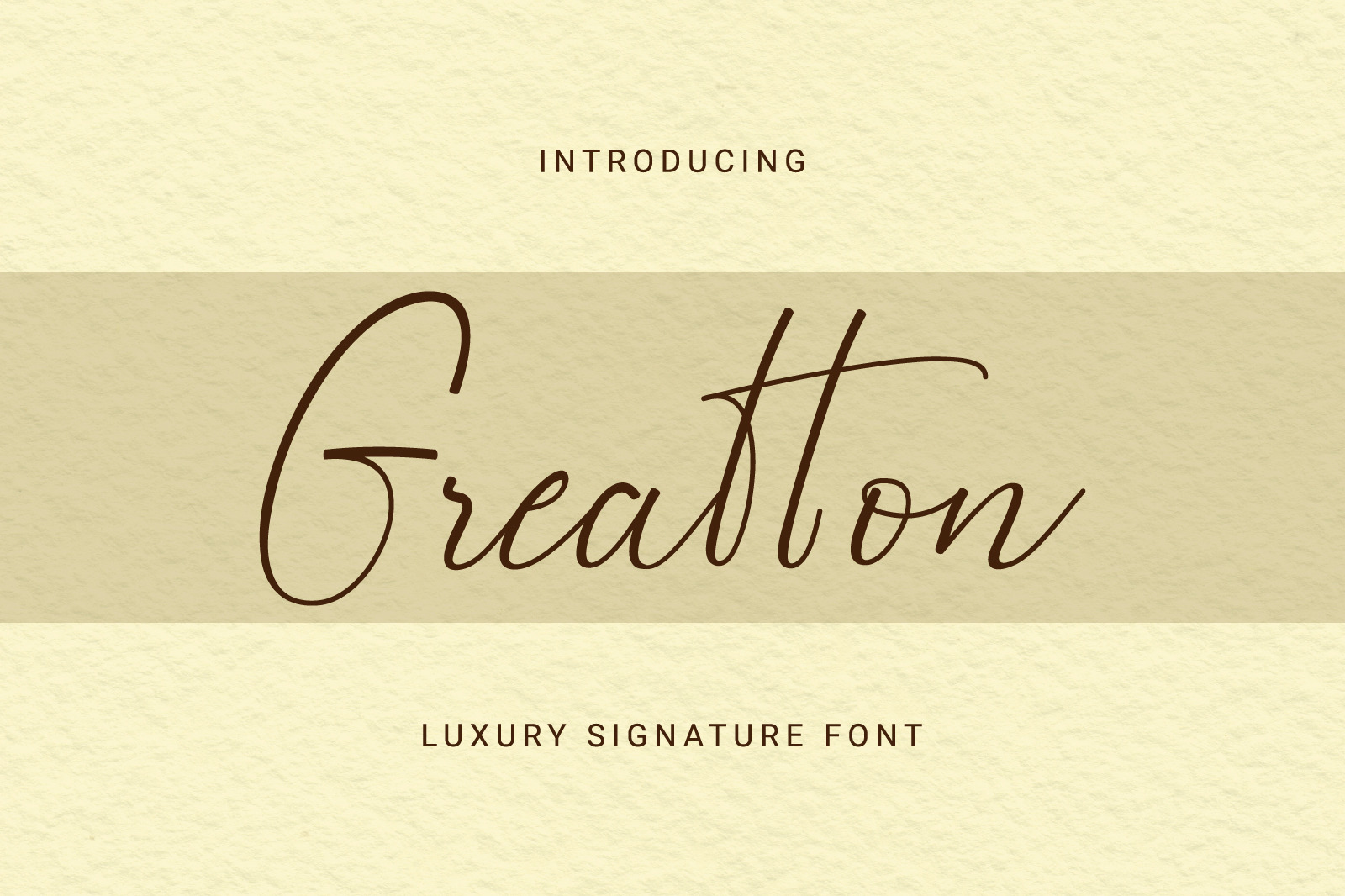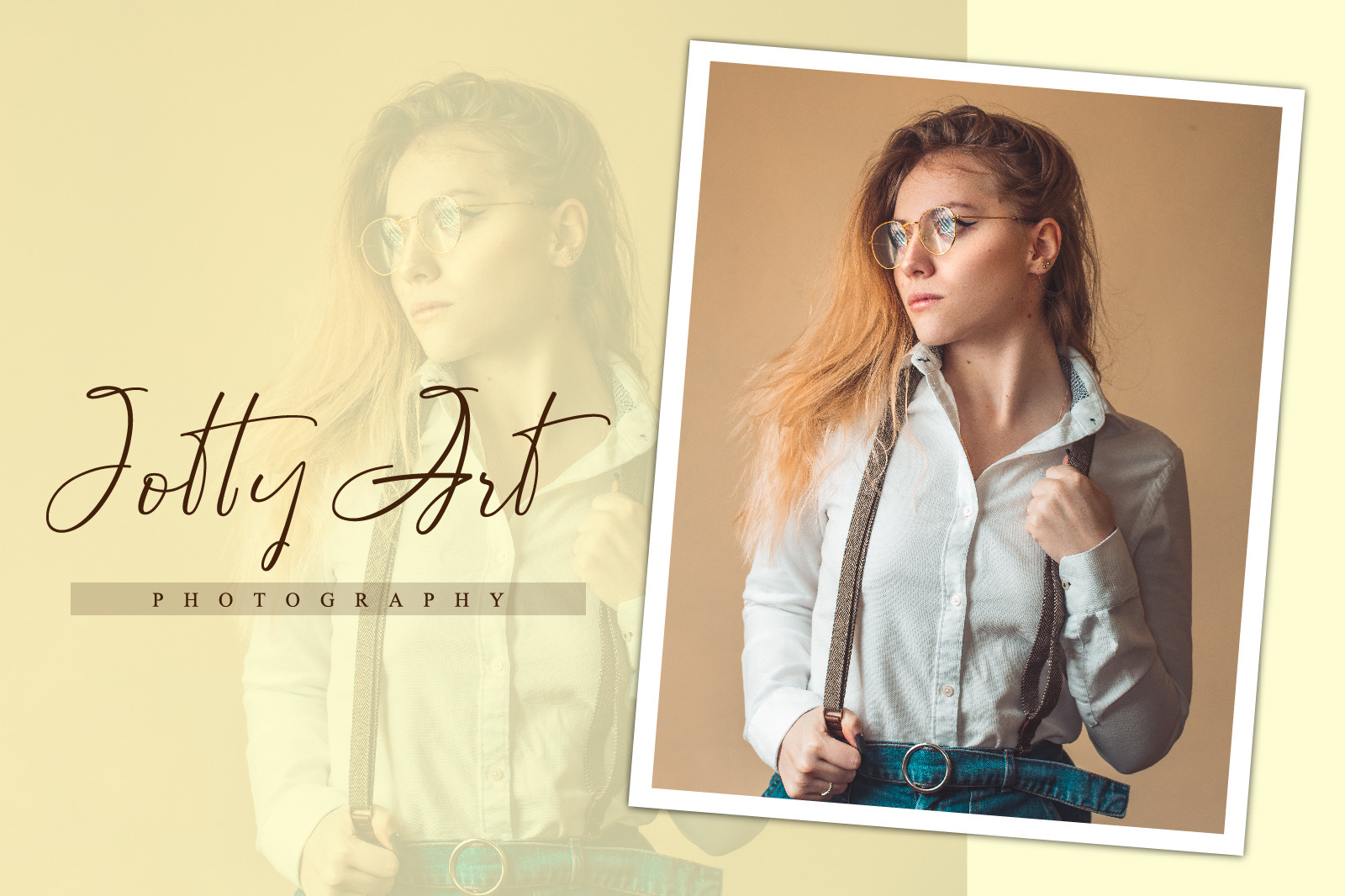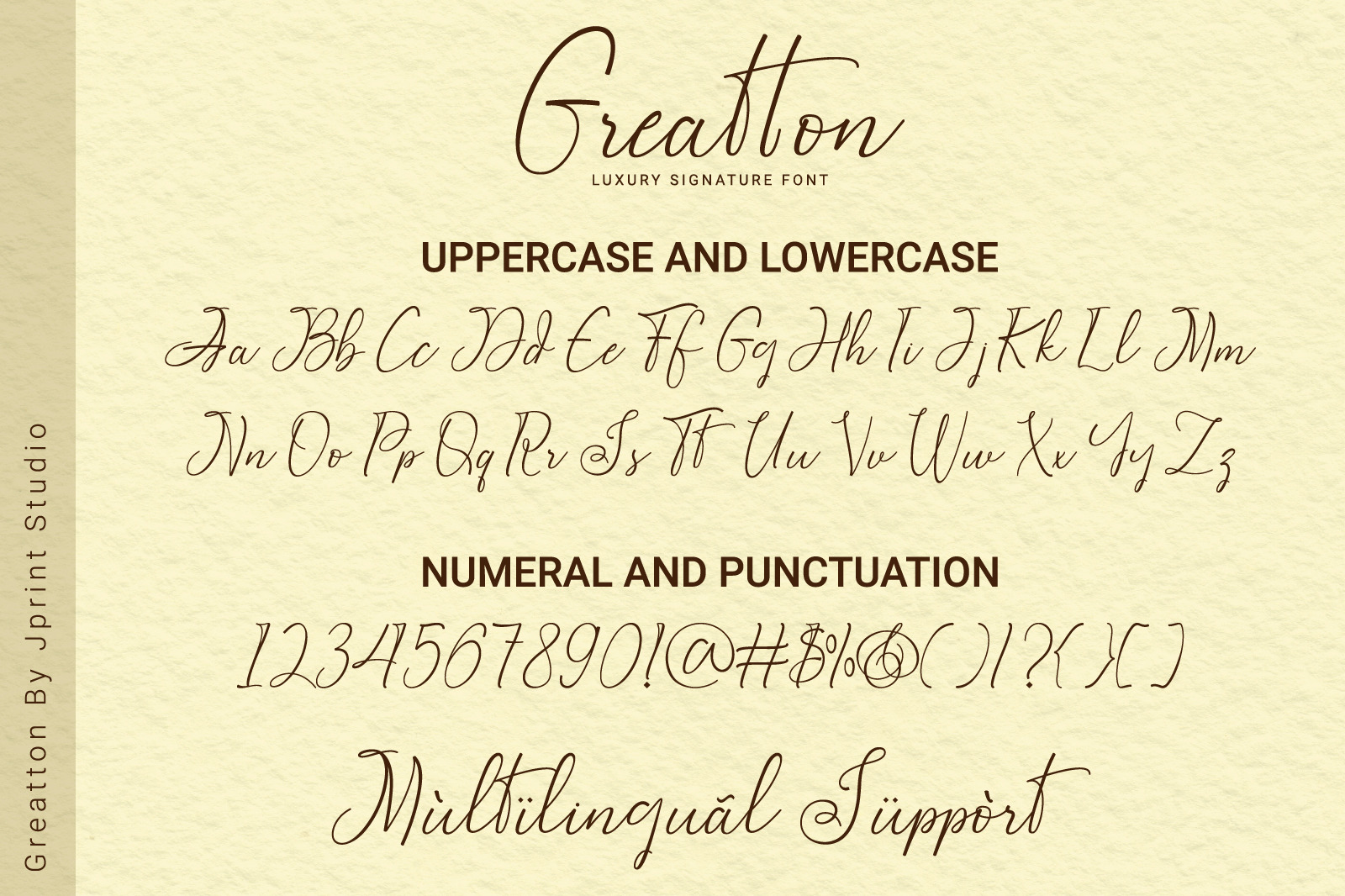
Greatton Luxury Signature Font
Greatton Signature is a beautiful, modern style handwritten font. Looks beautiful on a variety of designs that require a personalized style, such as wedding invitations, thank you cards, weddings, greeting cards, logos and so on. This font will turn any creative idea into a true work of art!